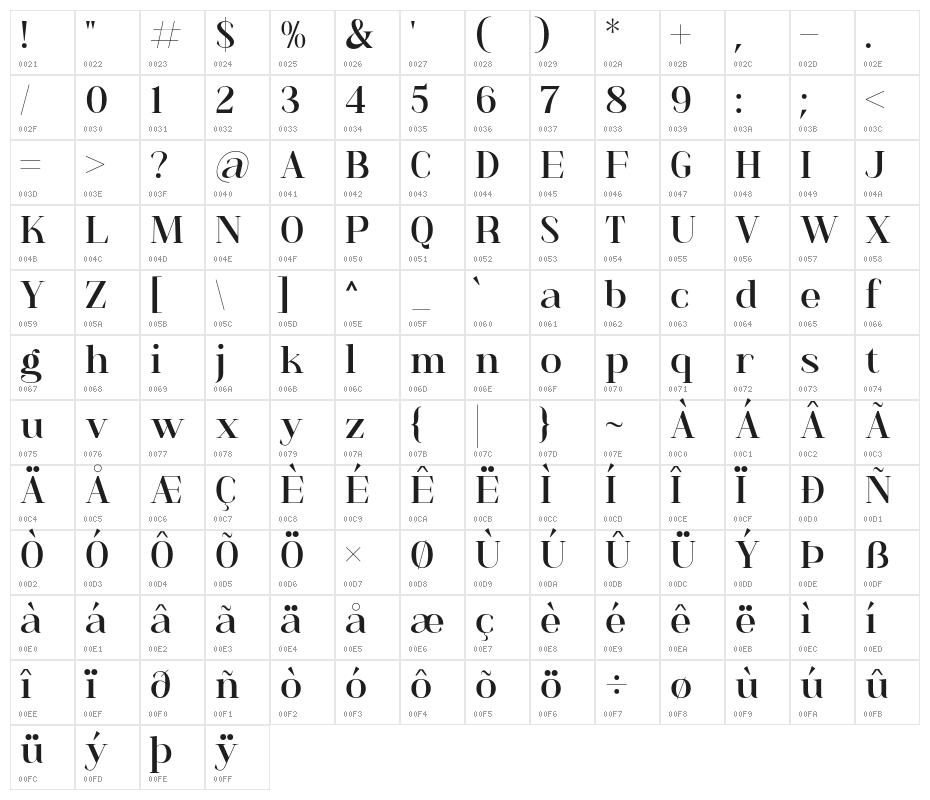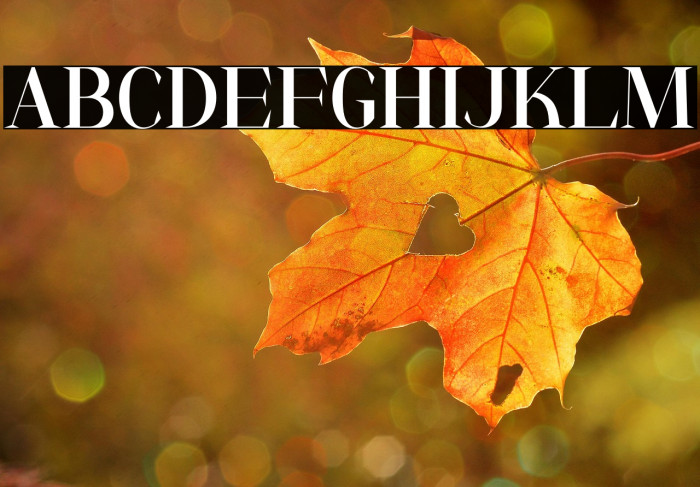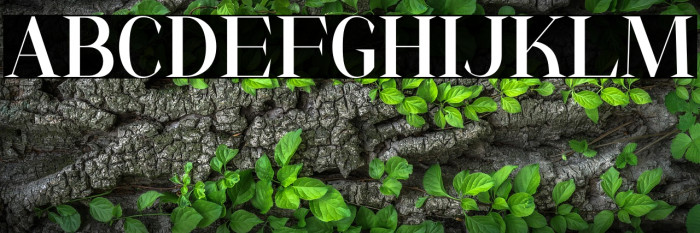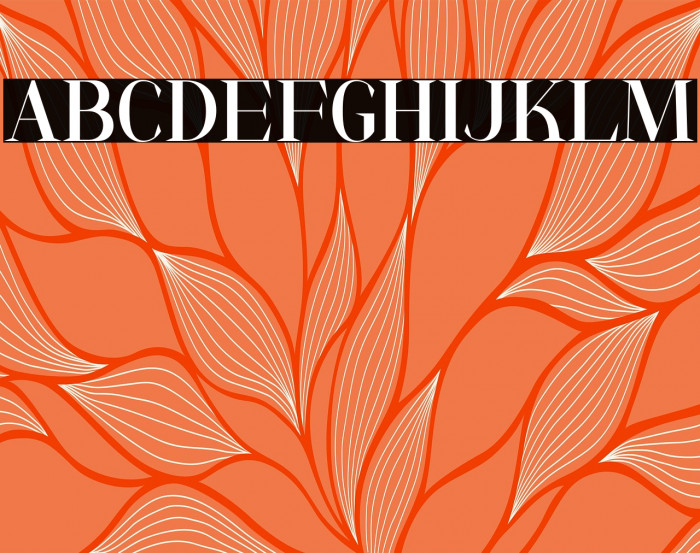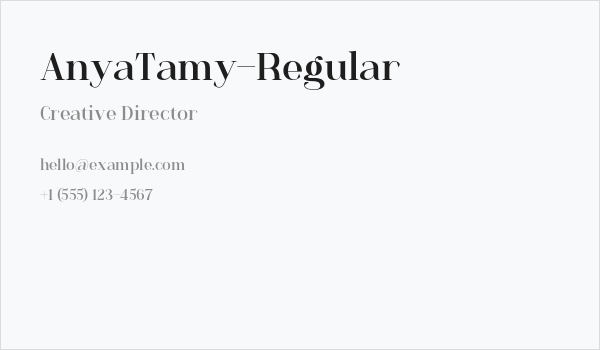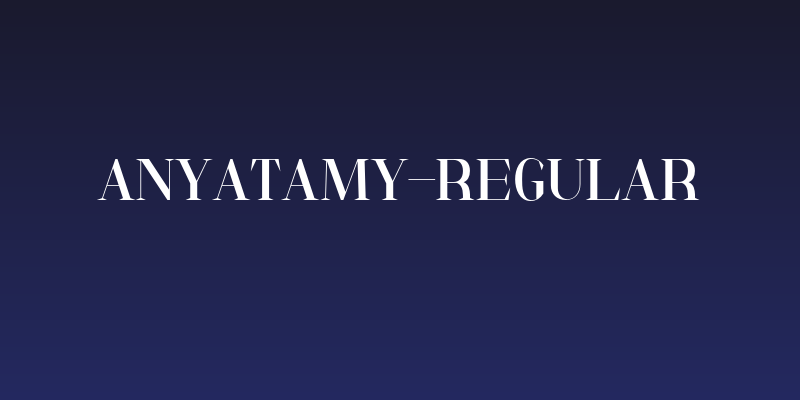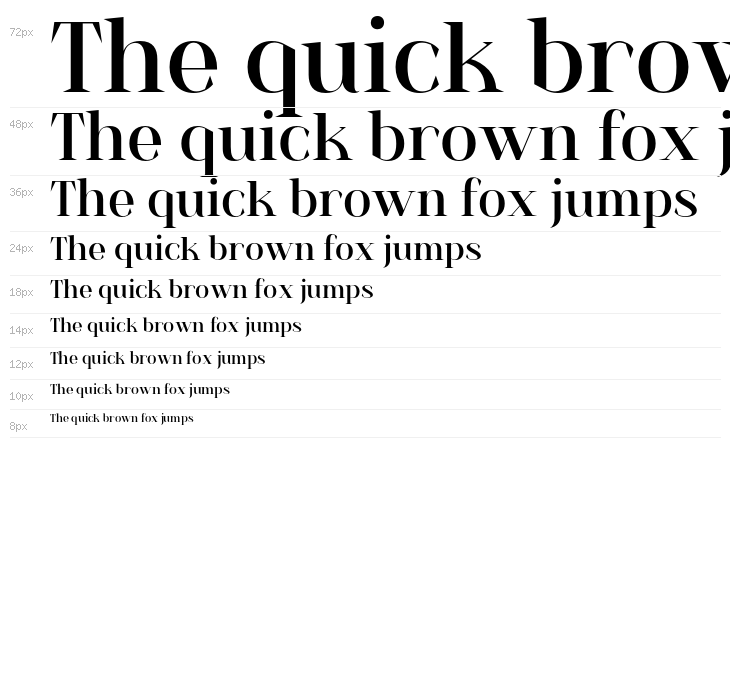
AnyaTamy-Regular Font
AnyaTamy-Regular Description
This font exhibits a classic serif style with elegant and refined strokes. The uppercase letters are bold and commanding, while the lowercase letters maintain a graceful and balanced appearance. The numerals are clear and distinct, making them easily readable. Special characters are designed with a touch of sophistication, adding to the overall aesthetic appeal. The font's high contrast between thick and thin strokes enhances its readability and visual impact, making it suitable for a variety of design applications.
| Proposed Projects | Ideal for editorial design, book covers, formal invitations, and branding projects that require a touch of elegance and sophistication. |